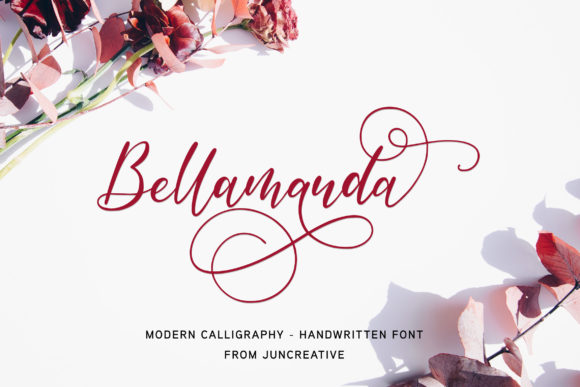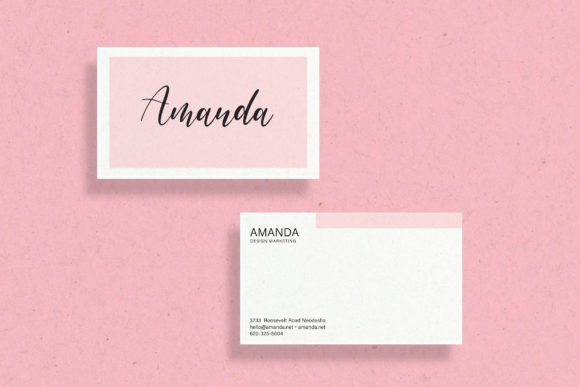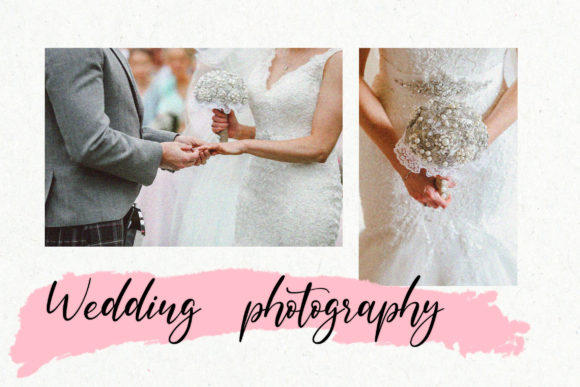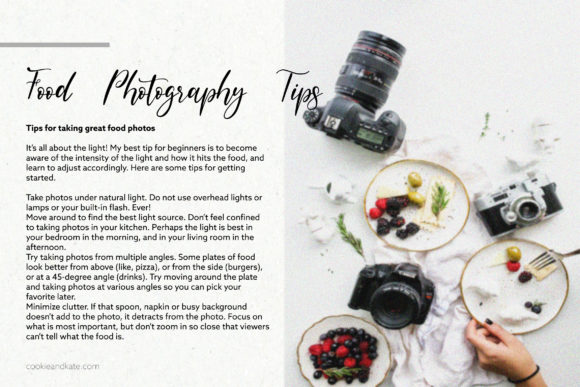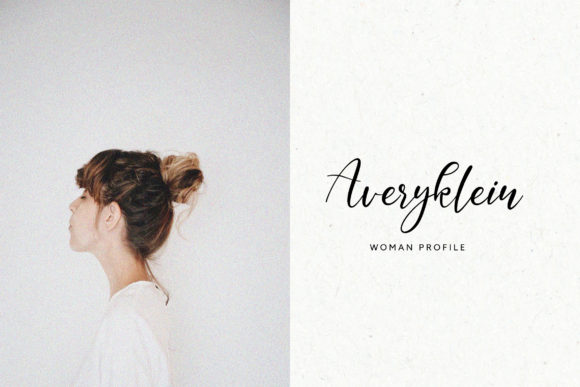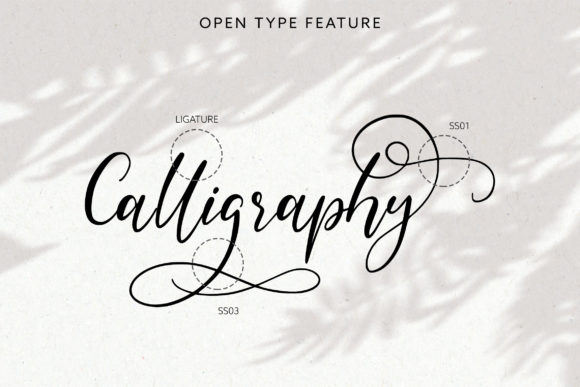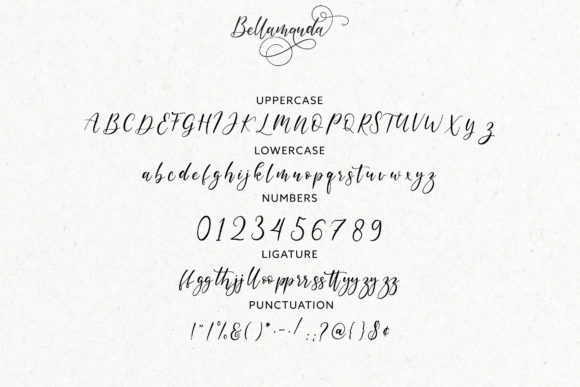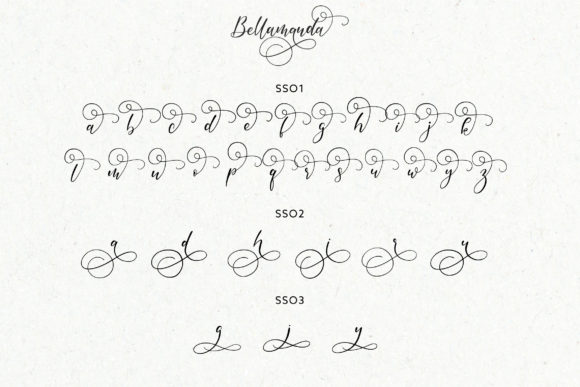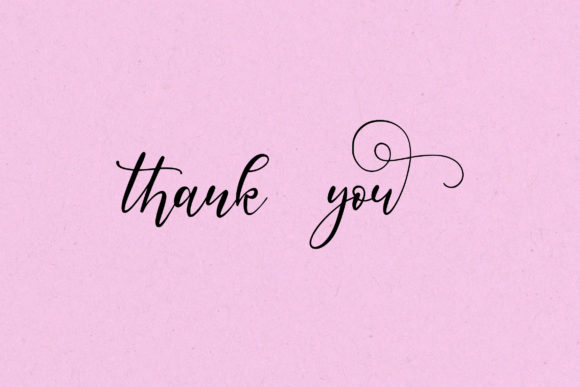
Bellamanda Script Font
About Bellamanda Script Font
Chintya is a lovely and fancy calligraphy font. It has an elegant and modern feel and can be used for logos, branding, invitations, stationery, wedding designs, social media posts, and much more.